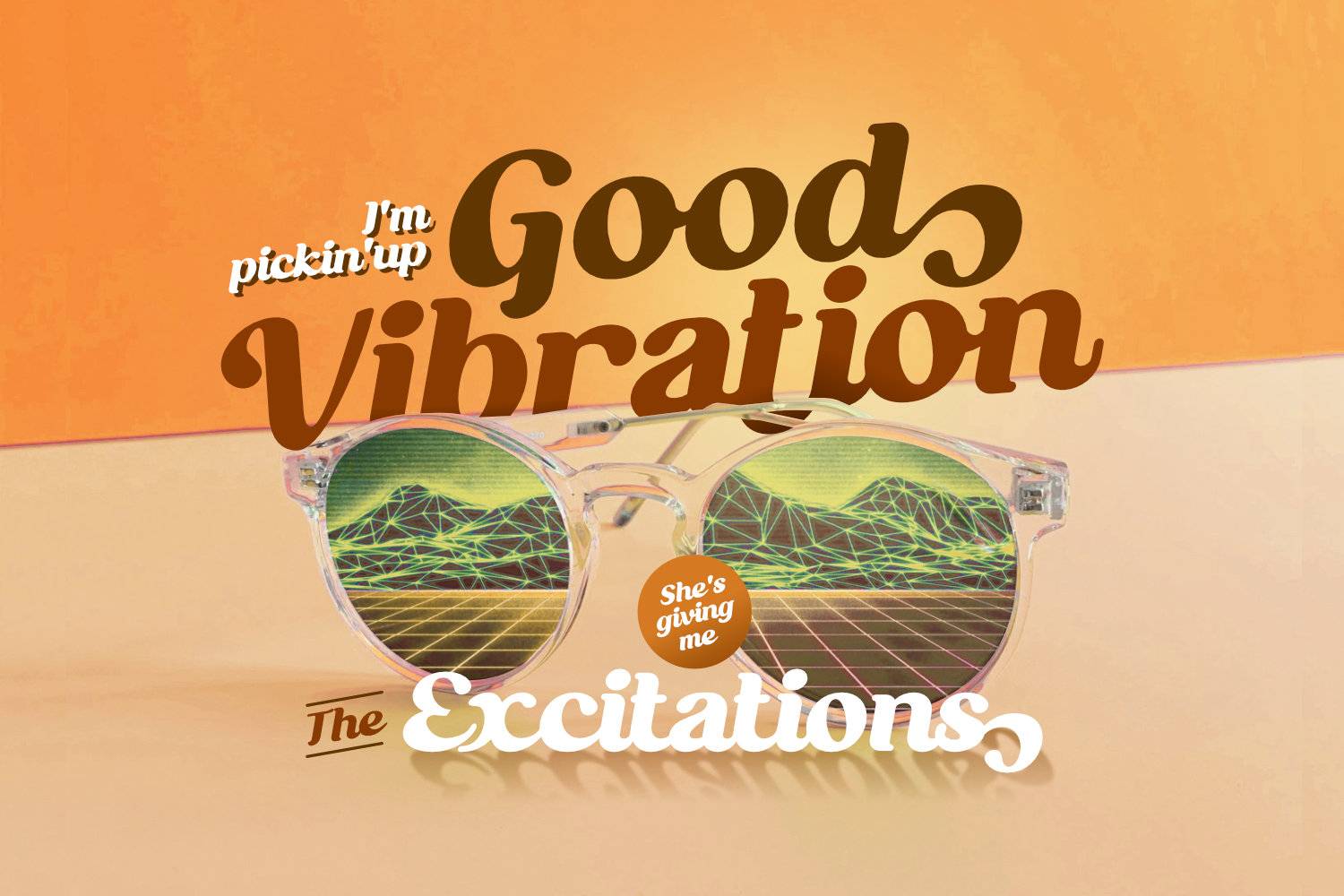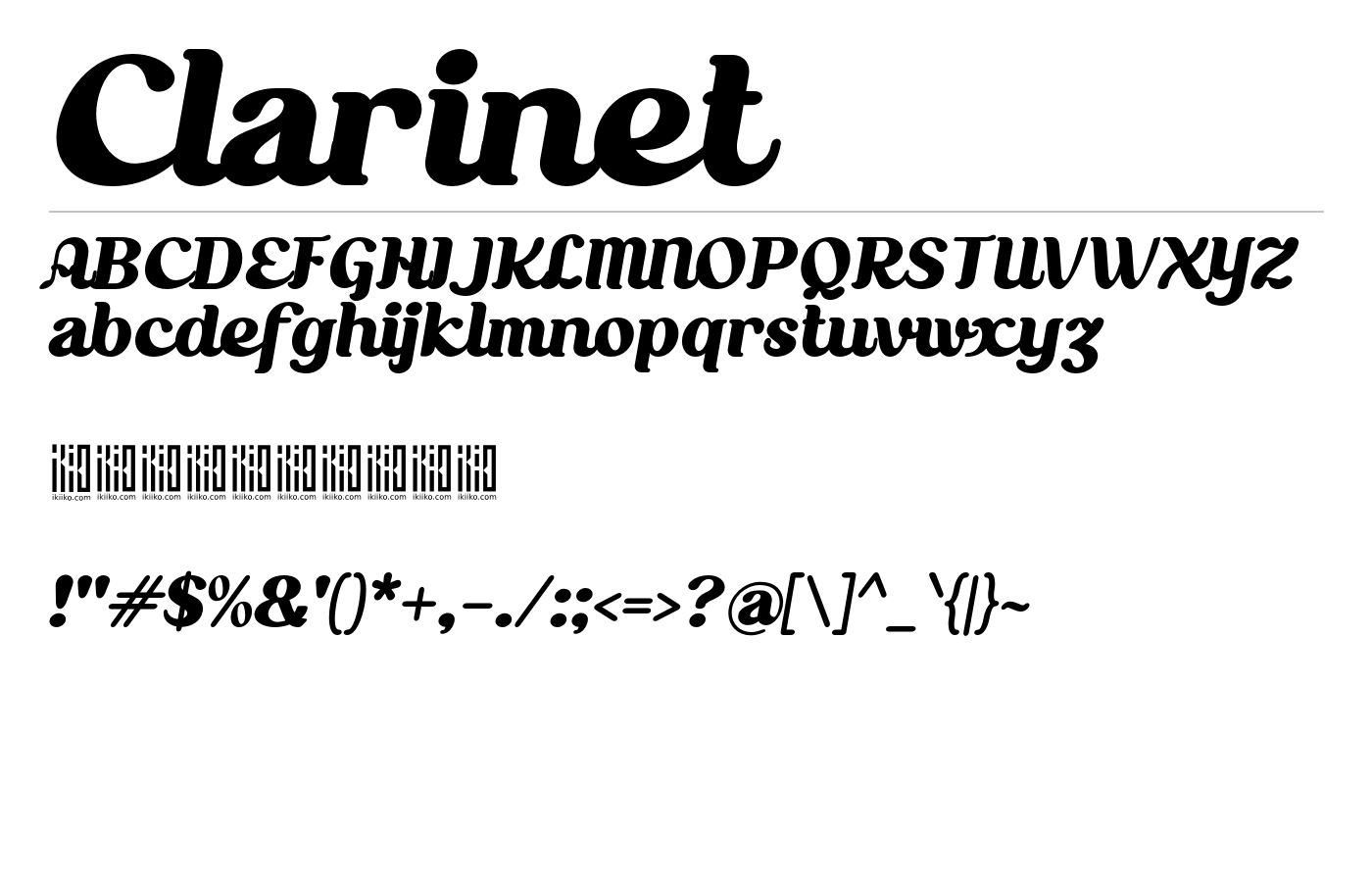
Clarinet is a bold, serif font with a classic yet playful character, featuring strong, bracketed serifs and a moderately high x-height that enhances readability. Its smooth, flowing curves and distinctive letterforms give it an elegant yet approachable feel, making it ideal for vintage-inspired branding, headlines, and packaging that seek to combine charm with confidence. This font shines in designs where a touch of personality and warmth is needed without sacrificing clarity or style.
Clarinet Font
About Clarinet Font